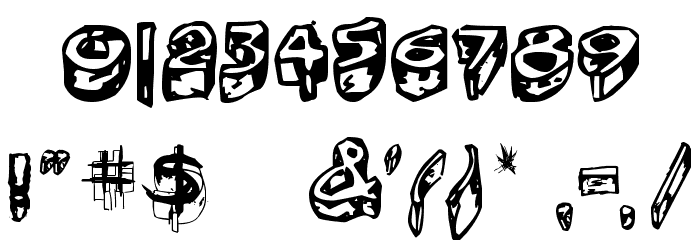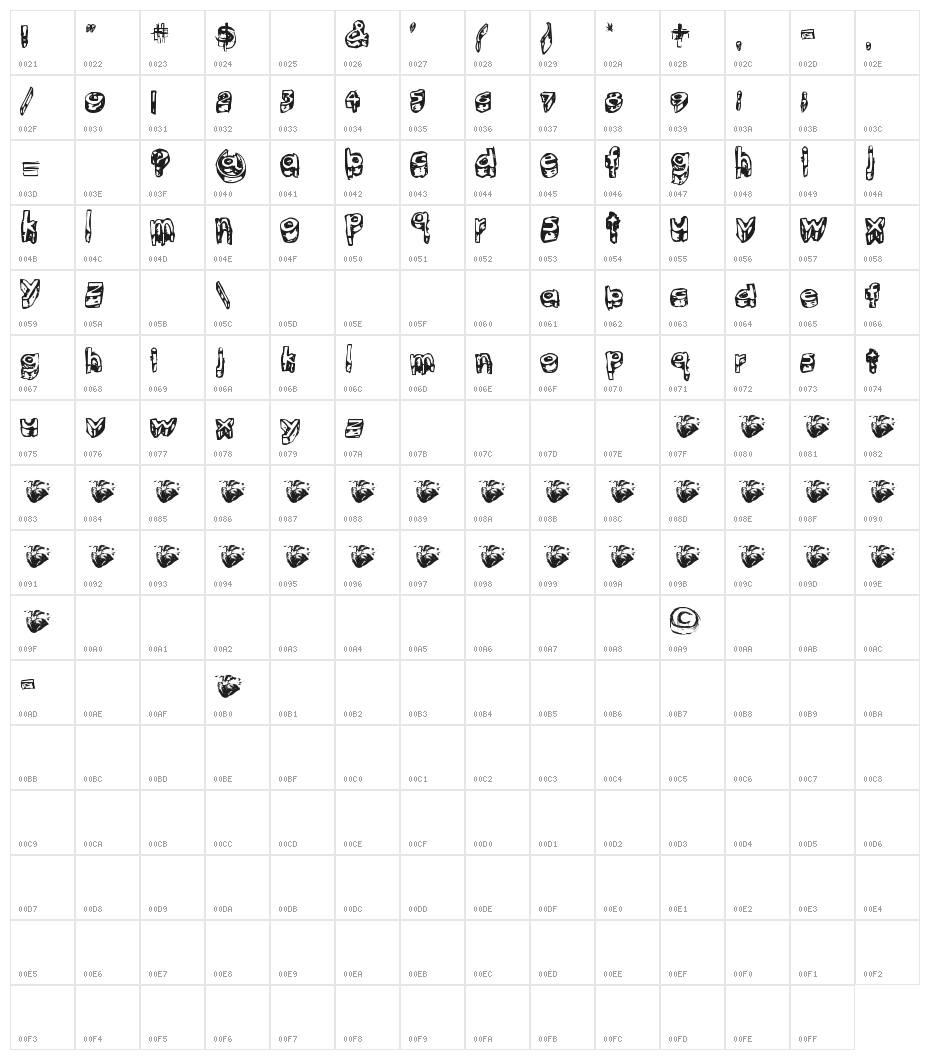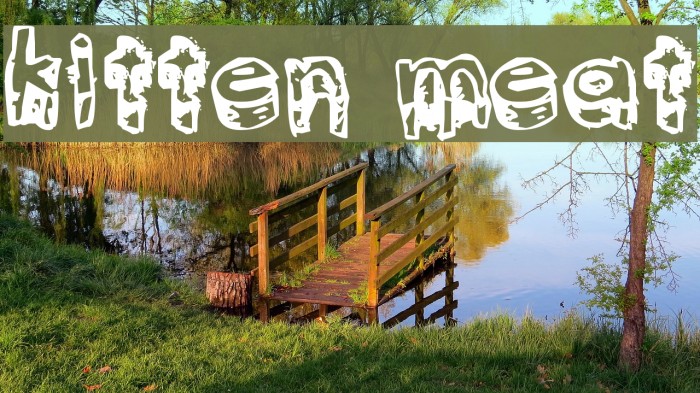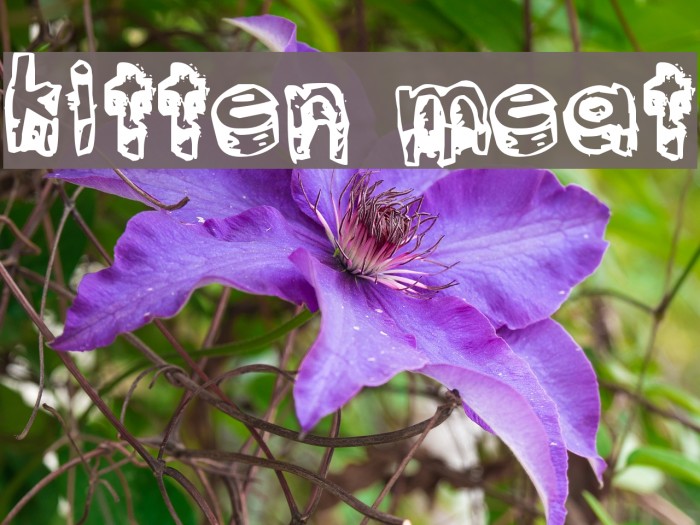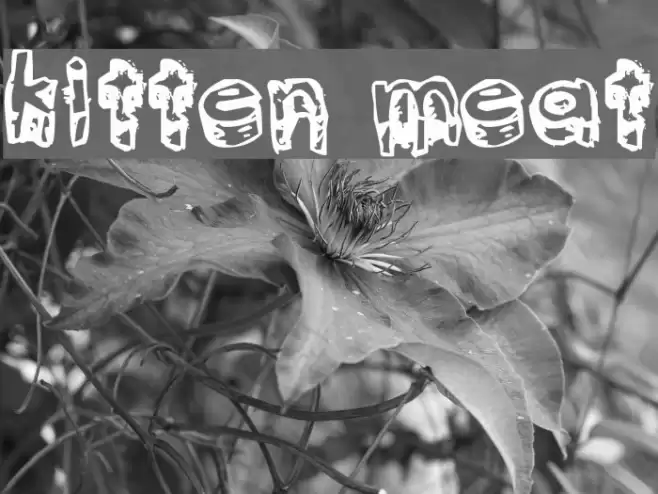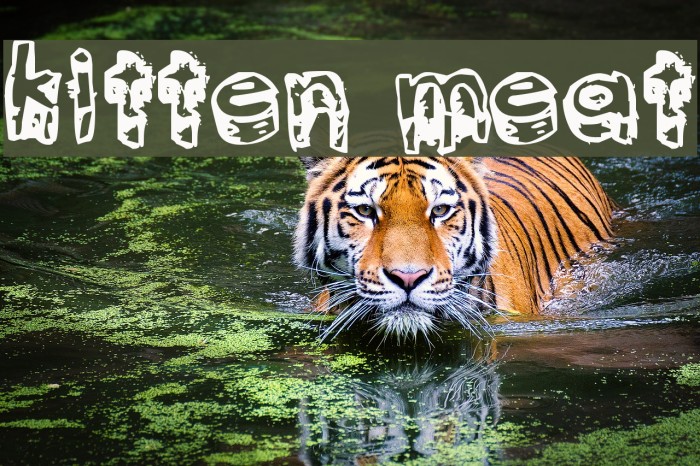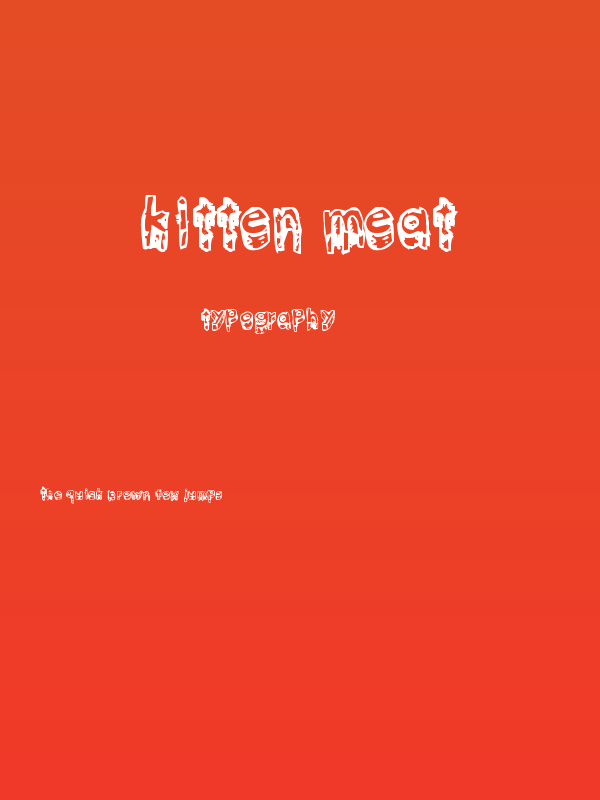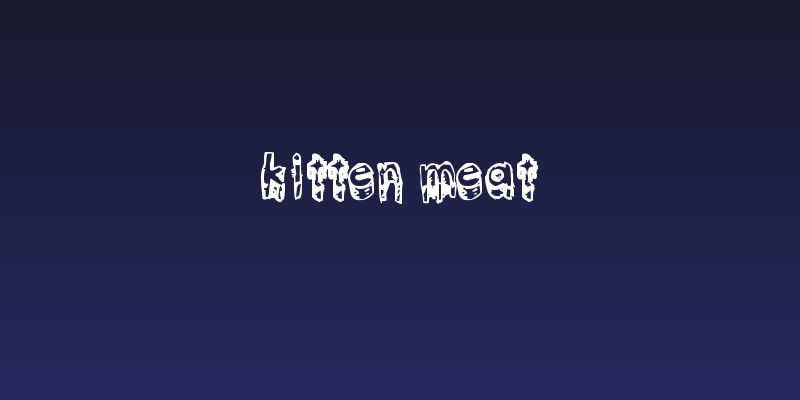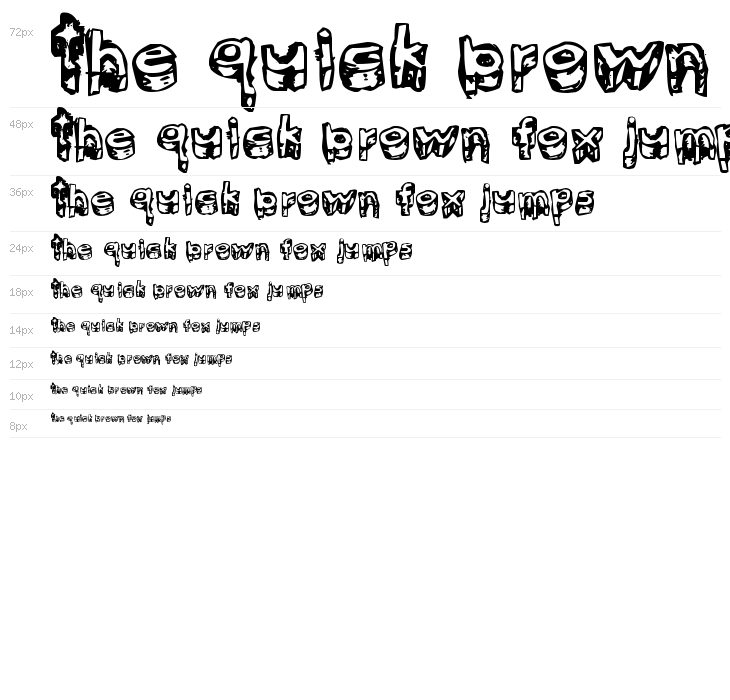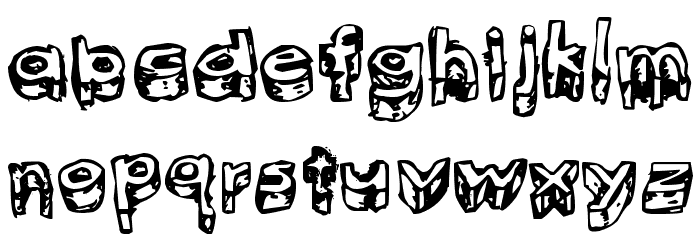
kitten meat Font
kitten meat Description
This font features a bold, playful style with a three-dimensional effect that gives each character a chunky, block-like appearance. The letters are heavily stylized with irregular edges and a distressed texture, adding a sense of whimsy and creativity. The font's unique design includes star and stripe patterns within the characters, enhancing its decorative appeal. The overall look is reminiscent of graffiti or street art, making it stand out with its bold and artistic flair. The numbers and special characters follow the same design principles, ensuring consistency across all elements.